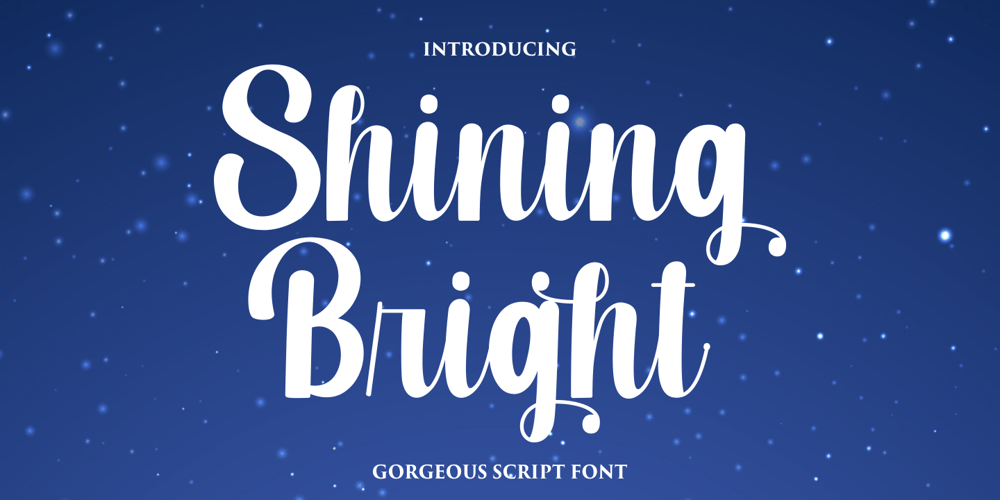
Shining Bright Font Family was designed by Muhammad Fikry and published by Fikryal. Shining Bright contains 1 styles and family package options. Shining Bright is a beautiful Script font perfect for crafting, branding, invitation, stationery, wedding designs, social media posts, advertisements, product packaging, product designs, label, photography, watermark, special events or anything.Shining Bright comes with full set of uppercase and lowercase letters, ligatures, contextual alternate,stylistic alternates, multilingual symbols, numerals and punctuation.